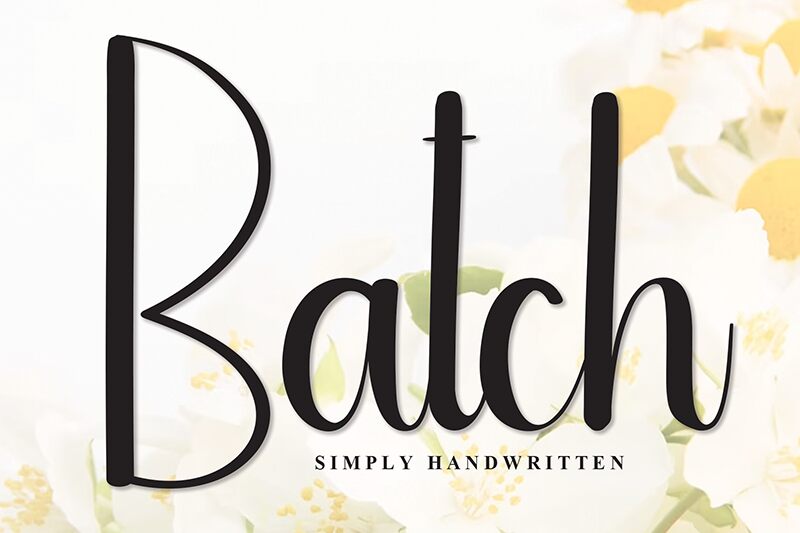
Batch
Batch font by Andi Moz is a modern handwritten font designed to bring clarity, precision, and sophistication. It carries an overall exquisite feel that pairs elegantly with contemporary design projects thanks to its subtle curves and condensed letters. A smooth flow promises effortless reading and navigating of the text in different applications. This expressive style will delight both the designer and viewer due to its simplistic yet undeniably classy results.
Batch is a free handwritten font useable in branding projects like logos, business cards, advertising material, custom fashion graphics designs; signage; magazine publishing; editorial content; lifestyle blogs headings or manuscripts; invitations for special events such as weddings or birthdays. Business presentation slides can also benefit highly from this versatile typeface’s implementation.